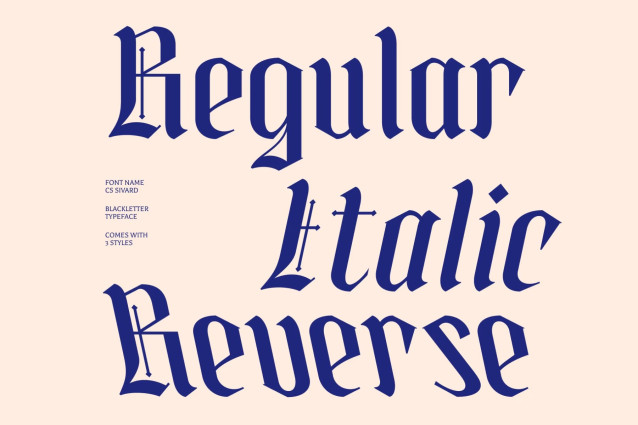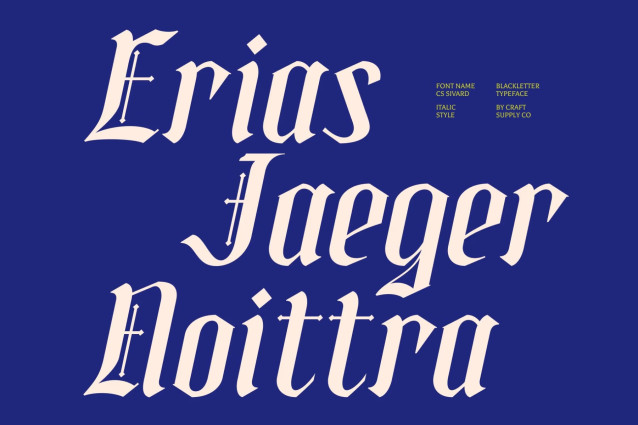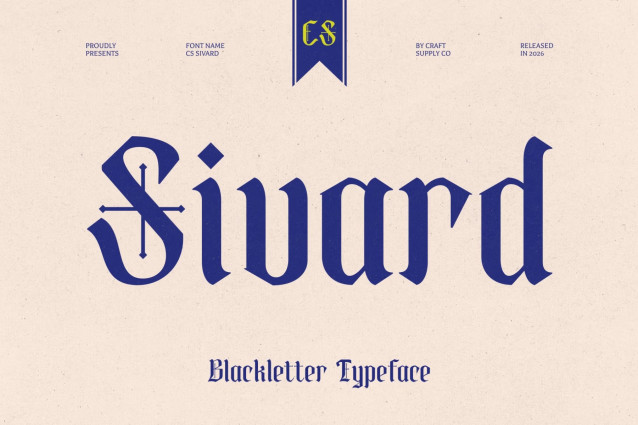
CS Sivard – Blackletter Font
CS Sivard – Blackletter Display Font with Bold Historic Character
Decorative Display Font with Blackletter Heritage
This is a decorative Blackletter display font that draws inspiration from historic typography while delivering a bold and distinctive visual presence. Featuring strong strokes and intricate details, this typeface captures the essence of traditional Blackletter craftsmanship, making it ideal for designs that seek authenticity, character, and timeless appeal.
Bold Strokes with Historical Influence
The defining feature of this font lies in its bold letterforms and classic Blackletter structure. The powerful strokes create a commanding presence, while the historic influences evoke a sense of tradition, heritage, and artistry. Every character is designed to make a statement, giving text a rich and memorable appearance.
Classic Aesthetic with Distinctive Style
This font balances historical elegance with decorative expression, resulting in a typeface that feels both timeless and unique. Its intricate forms and dramatic rhythm bring depth and personality to any composition, making it an excellent choice for projects that require a strong visual identity and classic atmosphere.